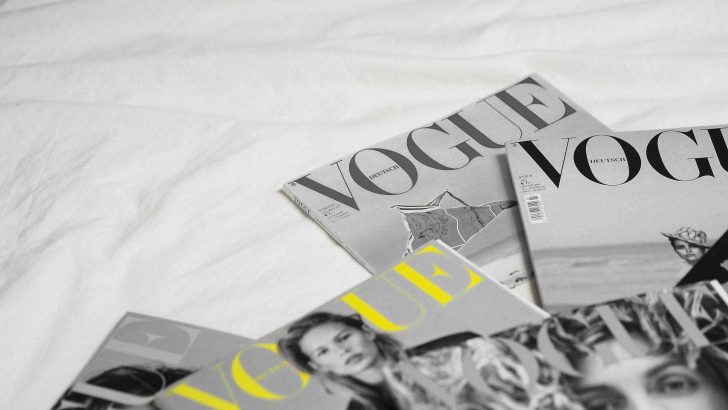
Editorial typography has become one of the strongest influences in modern branding. Inspired by fashion magazines, luxury publications, and premium advertising campaigns, editorial fonts help brands communicate elegance, confidence, and sophistication.
Whether you’re creating a luxury logo, designing product packaging, or building a premium website, the right editorial font can transform your visual identity and make your brand more memorable.
In this guide, we’ll explore the best editorial fonts for luxury branding in 2026 and explain why this typography style continues to dominate creative industries.
What Are Editorial Fonts?
Editorial fonts are typefaces inspired by high-end magazines, fashion editorials, and luxury publications. They combine beautiful proportions, refined details, and excellent readability to create a polished and professional appearance.
These fonts are commonly used by:
- Fashion brands
- Beauty companies
- Luxury hotels
- Jewelry brands
- Editorial magazines
- Premium lifestyle businesses
Why Editorial Fonts Are Trending
Luxury brands increasingly prefer typography that feels timeless rather than trendy.
Editorial fonts help brands communicate:
- Elegance
- Confidence
- Premium quality
- Creativity
- Professionalism
Their clean and sophisticated appearance makes them suitable for both print and digital branding.
Characteristics of Great Editorial Fonts
Elegant Serif Details
Many editorial fonts feature refined serif letterforms that create a luxurious impression.
High Readability
Despite their stylish appearance, editorial fonts remain easy to read across different media.
Timeless Design
Good editorial typography avoids short-lived trends and focuses on long-lasting appeal.
Balanced Proportions
Carefully crafted spacing and proportions create a polished, high-end look.
Best Uses for Editorial Fonts
Editorial fonts work beautifully for:
- Luxury logo design
- Magazine covers
- Product packaging
- Beauty branding
- Fashion lookbooks
- Website headlines
- Social media campaigns
- Brand presentations
Editorial Typography Trends in 2026
Quiet Luxury
Minimal layouts with elegant typography continue to dominate premium branding.
High-Contrast Serif Fonts
Fashion-inspired serif fonts remain one of the biggest typography trends.
Large Editorial Headlines
Oversized typography creates bold and memorable visual identities.
Serif and Sans Pairing
Combining elegant serif headlines with modern sans serif body text provides balance and readability.
Common Typography Mistakes
Avoid these mistakes when choosing editorial fonts:
- Using decorative fonts that reduce readability
- Mixing too many font styles
- Ignoring spacing and hierarchy
- Choosing fonts that don’t match your brand personality
- Following trends without considering long-term branding
How to Choose the Right Editorial Font
Before selecting a font, consider these questions:
- Does the font reflect your brand identity?
- Is it readable in print and digital formats?
- Will it work on packaging and marketing materials?
- Does it create a premium first impression?
The best editorial fonts combine elegance, versatility, and consistency.
Final Thoughts
Editorial typography remains one of the most effective ways to build a luxury brand. Whether you’re designing for fashion, beauty, hospitality, or lifestyle businesses, a carefully chosen editorial font can elevate every part of your visual identity.
By investing in timeless typography, your brand will look more professional, memorable, and ready to compete in today’s premium market.